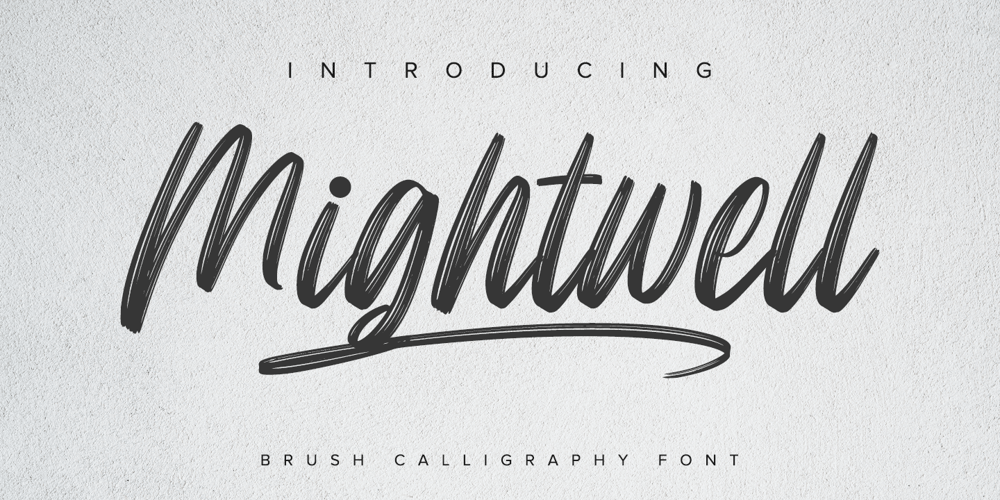
Mightwell
Mightwell font
Mightwell Font Family was designed by Donis Miftahudin and published by Ditatype. Mightwell contains 2 styles and family package options. Mightwell is a modern Brush font. With a classy and natural handwritten style, it brings a classy and chic typeface. Mightwell is best used for weddings, branding, logotype, and quotes.Features: – Beautiful Ligatures – PUA Encoded – Multilingual Support – Numerals and Punctuation